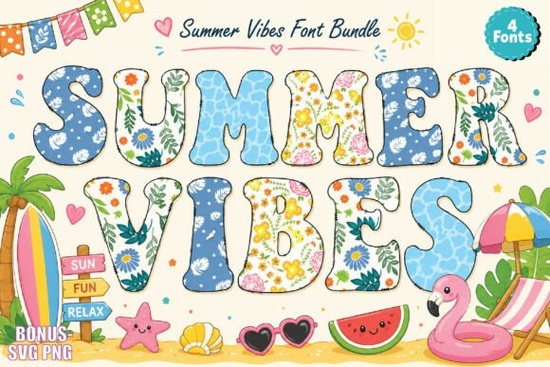
If you're working on summer-themed designs whether for invitations, merch, or social media you know how much the right typography can set the mood. The Summer Vibes Font brings that cheerful, sun-soaked energy with its retro-kawaii-doodle fusion. It’s not just another script or sans-serif; it’s a full alphabet pack packed with personality, perfect for adding a playful splash to seasonal projects.
Designed with crafters, small business owners, and print-on-demand creators in mind, this font shines in contexts where fun and vibrancy matter most. Think pool party invites, beach tote bags, kids’ summer camp flyers, or even planner stickers that capture that laid-back holiday feeling. What makes it stand out is how it blends nostalgic summer aesthetics think 90s pool floats and pastel ice cream with modern design sensibilities.
What kind of projects work best with Summer Vibes Font?
This font thrives in casual, joyful settings. Here are a few real-world uses that designers and sellers have found successful:
- Event invitations – From backyard BBQs to lakeside birthdays, the font’s bubbly letterforms instantly signal “fun in the sun.”
- T-shirt and sublimation designs – Pair it with palm trees, sunglasses, or flamingos for wearable summer nostalgia.
- Social media graphics – Use it for Instagram story highlights, TikTok text overlays, or Pinterest pins promoting summer sales.
- Kids’ crafts and school break projects – Teachers and parents love fonts that feel energetic but not overwhelming.
- Stickers and planner elements – Its doodle-like quality fits right into bullet journals and habit trackers.
How does it compare to other playful fonts?
If you’ve browsed Creative Fabrica’s colorful fonts before, you might also enjoy options like the Kidnap Patriot font, which leans into bold, comic-inspired lettering, or the Whimsy Red White and Blue font for patriotic summer events like Fourth of July. But Summer Vibes stands apart with its softer, more whimsical strokes and tropical undertones less graphic, more hand-drawn joy.
Unlike minimalist or geometric fonts that prioritize clean lines, Summer Vibes embraces irregularity. Letters might have tiny stars, wavy baselines, or subtle shadow effects baked in. That built-in texture saves time you don’t need to add extra embellishments to make your text pop.
Tips for using Summer Vibes Font effectively
To get the most out of this font without overwhelming your design:
- Pair it with simple backgrounds. Let the font be the star avoid busy patterns or competing textures.
- Use it for headlines or short phrases. Its decorative nature works best in moderation; body text can become hard to read.
- Stick to summer-friendly color palettes. Think coral, sky blue, lemon yellow, or seafoam green even if the font auto-colors, your layout colors should complement its vibe.
For print-on-demand sellers, this font can help differentiate your summer collection from generic offerings. A beach towel with “Sunshine Only” in Summer Vibes feels instantly more curated than one using a standard bold sans-serif. Similarly, small businesses running seasonal promotions can use it to create limited-time visuals that feel fresh and on-theme.
And if you’re a hobbyist making DIY gifts a birthday card for a friend heading on vacation, or custom water bottles for a family reunion this font adds a personal, handmade touch without requiring illustration skills.